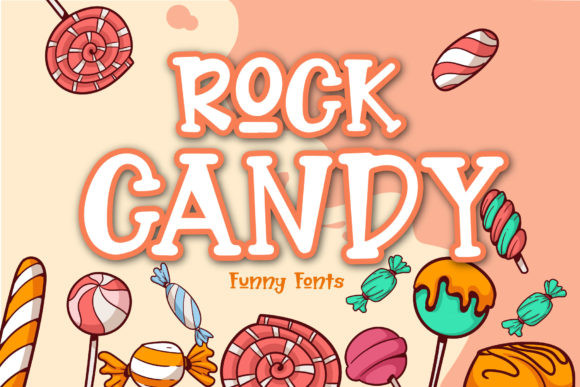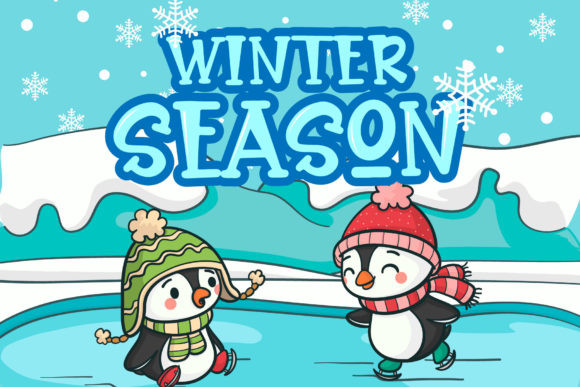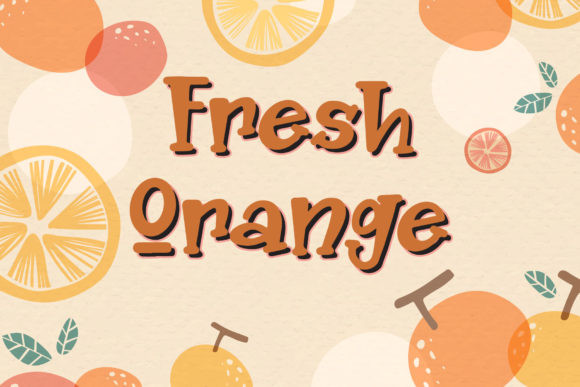
Rock Candy Font
Rock Candy is a cute and friendly display font. It will add a relaxed and joyful touch to each of your designs. Add Rock Candy to your ideas and notice how it makes them come alive!